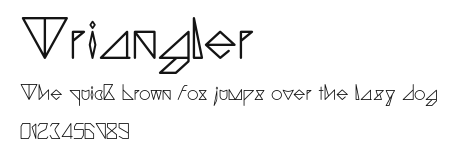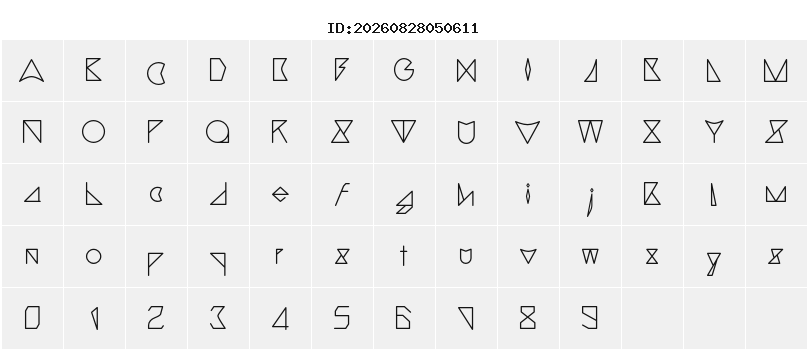
Triangler Preview
• Font Name: Triangler
• Full Font Name: Triangler
• Designer: Timothy Gao
• Manufacturer: Timothy Gao
About Triangler.otf
Triangler.otf is a modern, elegant sans-serif font designed for ultimate readability and visual harmony. Perfect for branding, headlines, web design, and print materials.